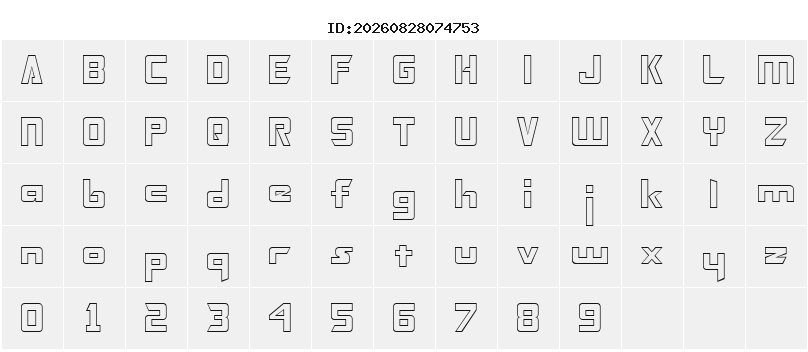
Transformers Hollow Preview
• Font Name: Transformers Hollow
• Full Font Name: Transformers Hollow Normal
About Transformers Hollow.ttf
Transformers Hollow.ttf is a modern, elegant sans-serif font designed for ultimate readability and visual harmony. Perfect for branding, headlines, web design, and print materials.